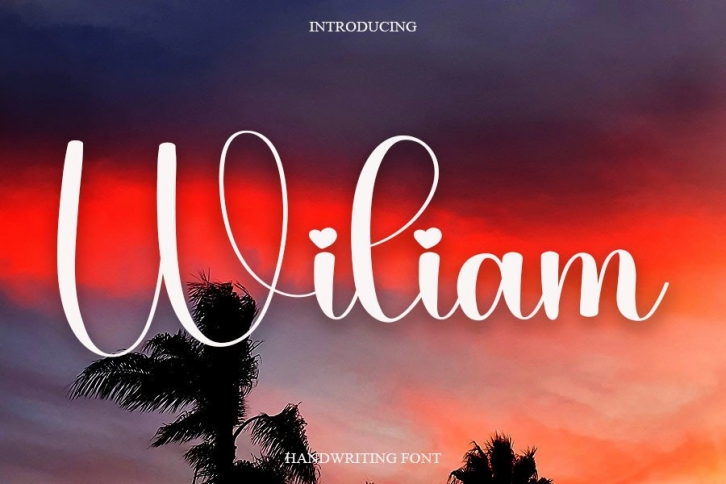
Wiliam is a sweet and beautiful handwritten font. Featuring characters that dance along the baseline,
this font will add a luxury spark to any design project you wish to create!